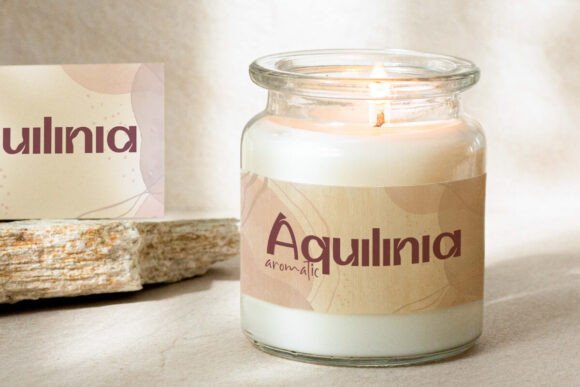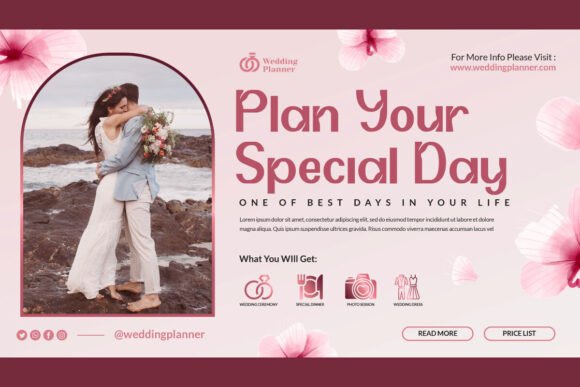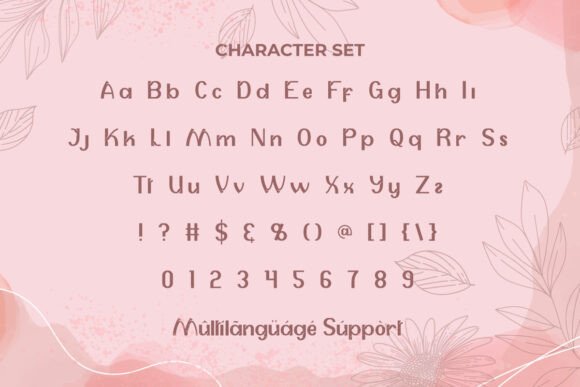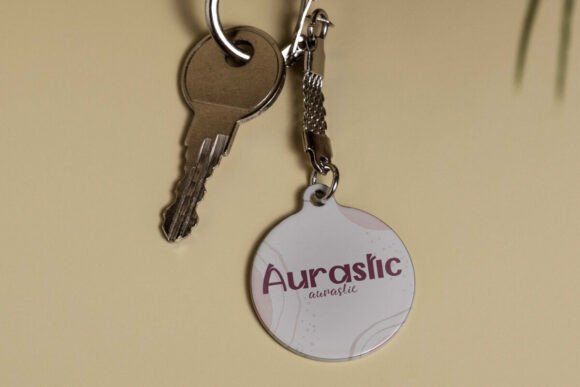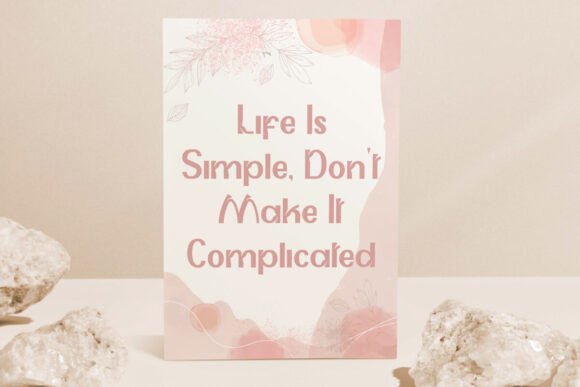
Aurastic Font: Elevate Your Designs with a Unique Sans-Serif Display Font
In the world of typography, fonts play a crucial role in conveying the tone and personality of a brand. For designers and crafters, finding the perfect font that stands out from the crowd can be a daunting task. However, if you’re looking for a font that is both aesthetically pleasing and versatile, look no further than Aurastic Font. This unique sans-serif display font is designed to capture attention and add a touch of elegance to any design project.
What Makes Aurastic Font Special?
Aurastic Font is a one-of-a-kind sans-serif display font that boasts a distinctive shape for each letter. This distinctive feature sets it apart from other fonts and makes it an excellent choice for designers looking to add a personal touch to their work. The font’s unique shape not only grabs attention but also blends in beautifully with various design elements, making it an ideal choice for a wide range of industries.
Aurastic Font is incredibly versatile and can be used across various industries, including:
- Accessories
- Boutiques
- Café
- Entertainment
- Event or wedding organizer
- Fashion
- Florist
- Handicraft
- Photography
- Printing
- Publishing
- Skincare
- Spa salons
- Writer
- and many more!
Whether you’re designing a logo, brochure, or website, Aurastic Font is the perfect choice. Its clean and modern design ensures that it complements any visual element, making it an excellent addition to your design toolkit.
Why Choose Aurastic Font?
There are several reasons why Aurastic Font stands out from other fonts:
- Unique Design: Each letter has a distinctive shape that sets it apart from other fonts.
- Versatility: Suitable for various industries and design projects.
- Elegance: Adds a touch of sophistication and elegance to any design.
- Readability: Clear and easy to read, making it perfect for display text.
Tips for Using Aurastic Font
To get the most out of Aurastic Font, here are some tips:
- Use it as a display font to grab attention.
- Pair it with a simple font for body text to create contrast.
- Experiment with different colors and textures to enhance the font’s unique design.
- Use it consistently across your brand’s visual identity to create a cohesive look.
Aurastic Font is an exceptional sans-serif display font that offers a unique blend of aesthetics and versatility. Its distinctive design makes it an excellent choice for designers and crafters looking to elevate their design projects. With its wide range of applications and ease of use, Aurastic Font is sure to become a staple in your design toolkit.